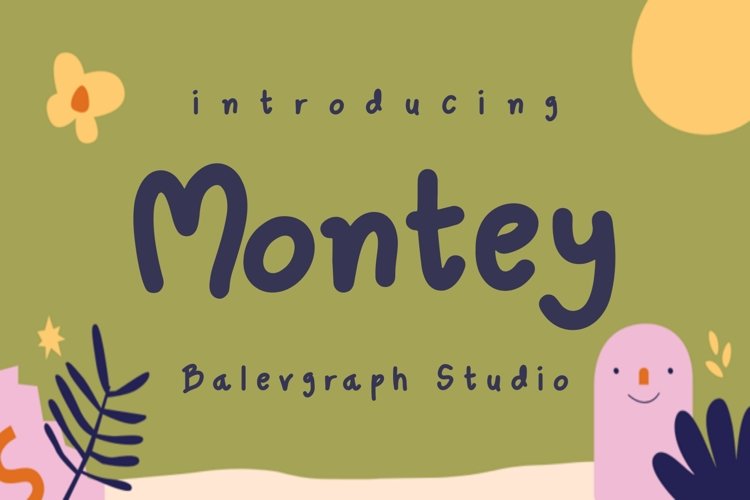
Montey is cute handwriting
Montey would perfect for photography, watermark, social media posts, advertisements, logos & branding, invitation, product designs, label, stationery, wedding designs, product packaging, special events or anything that need handwriting taste.